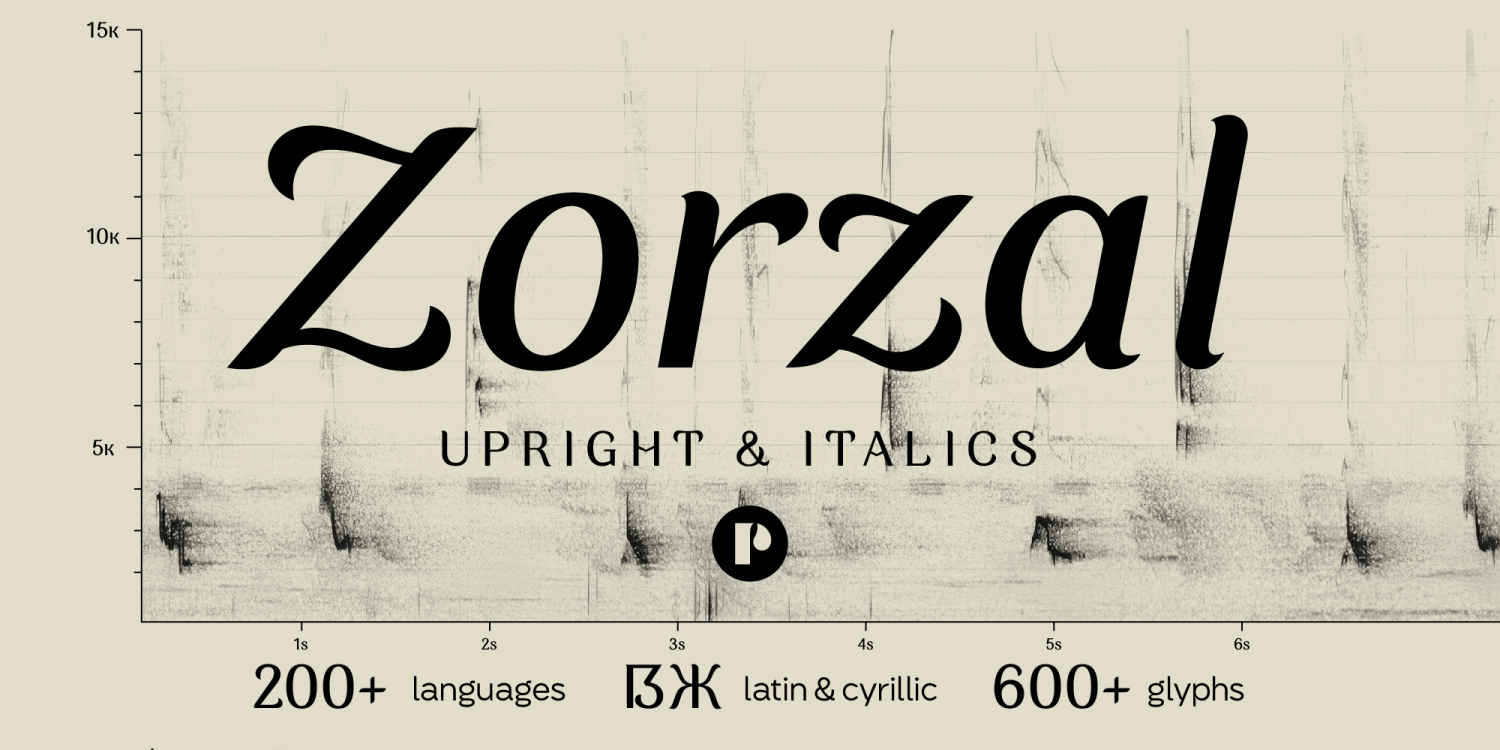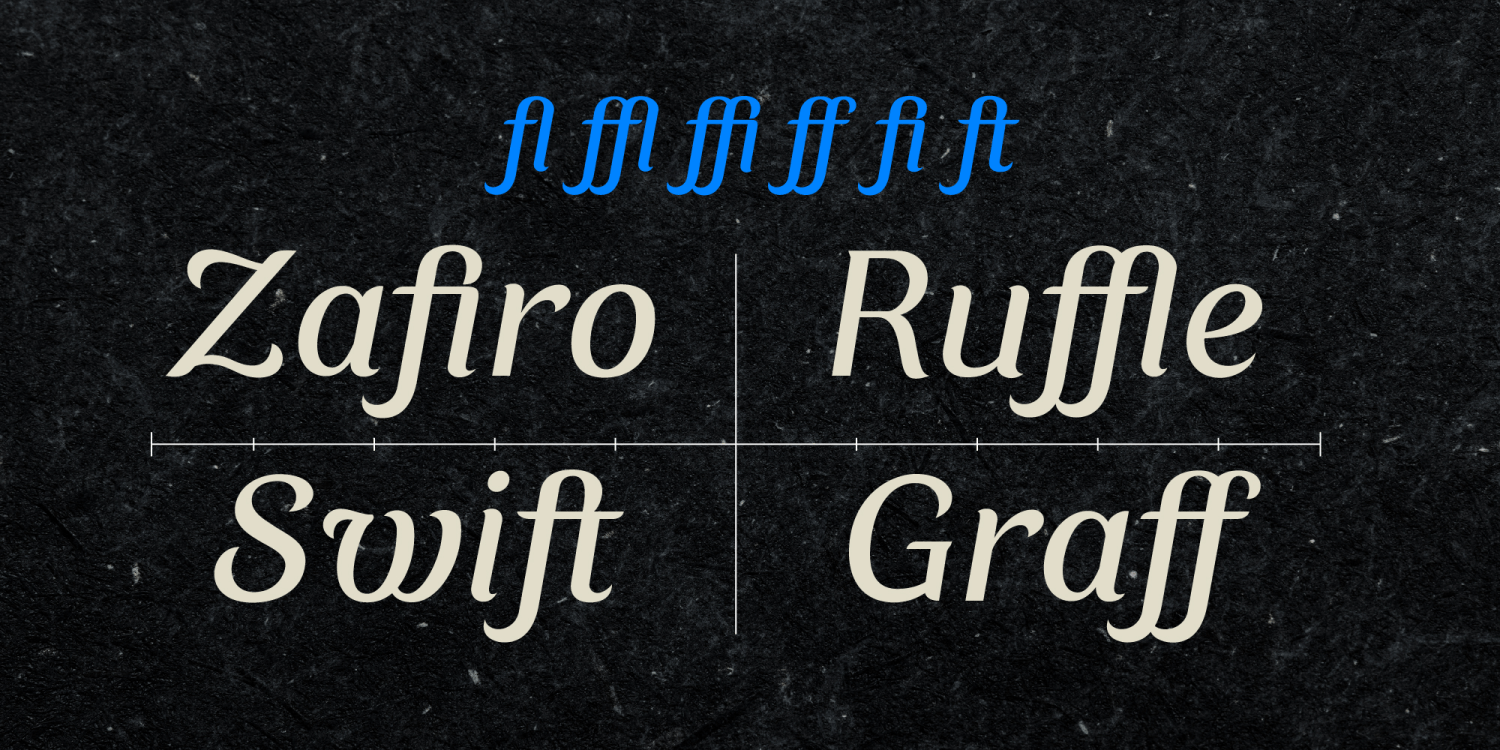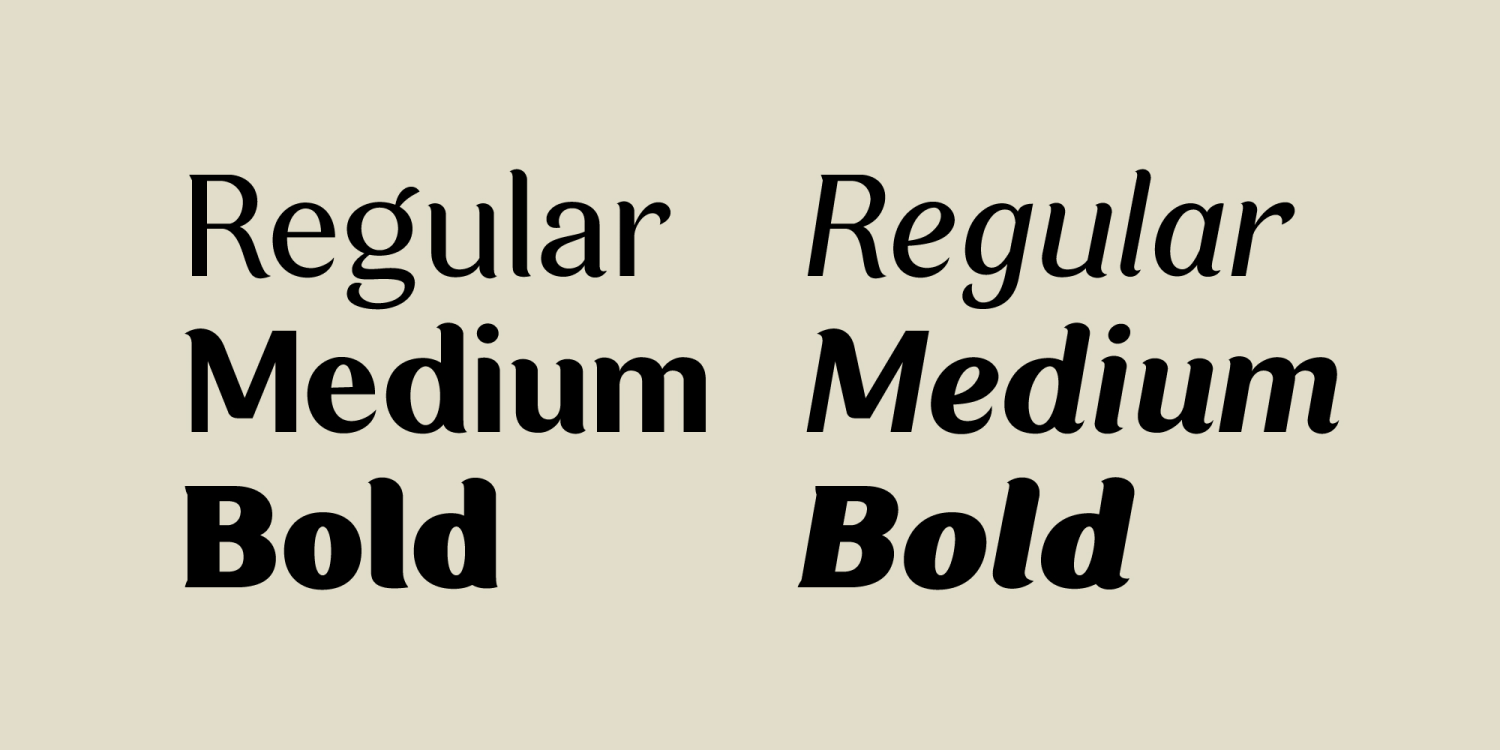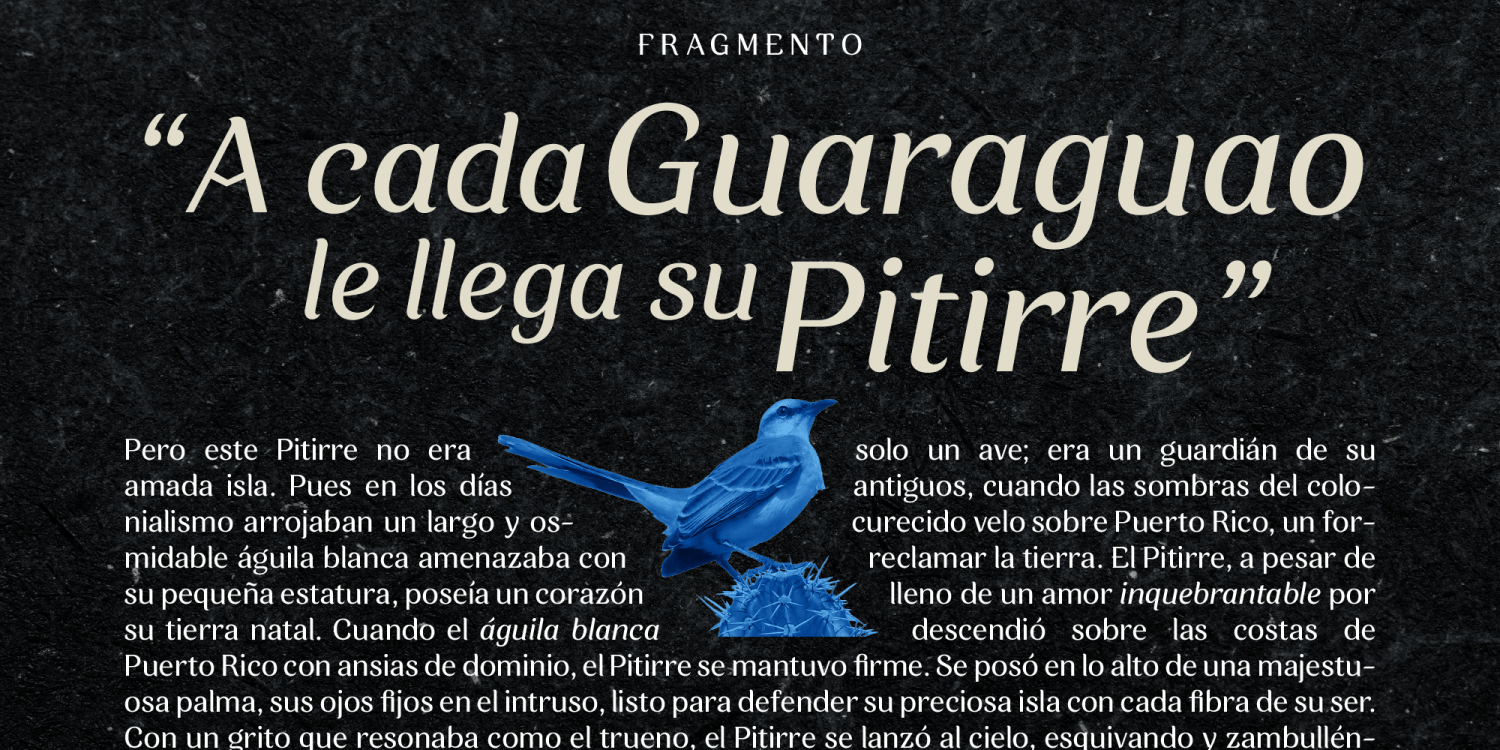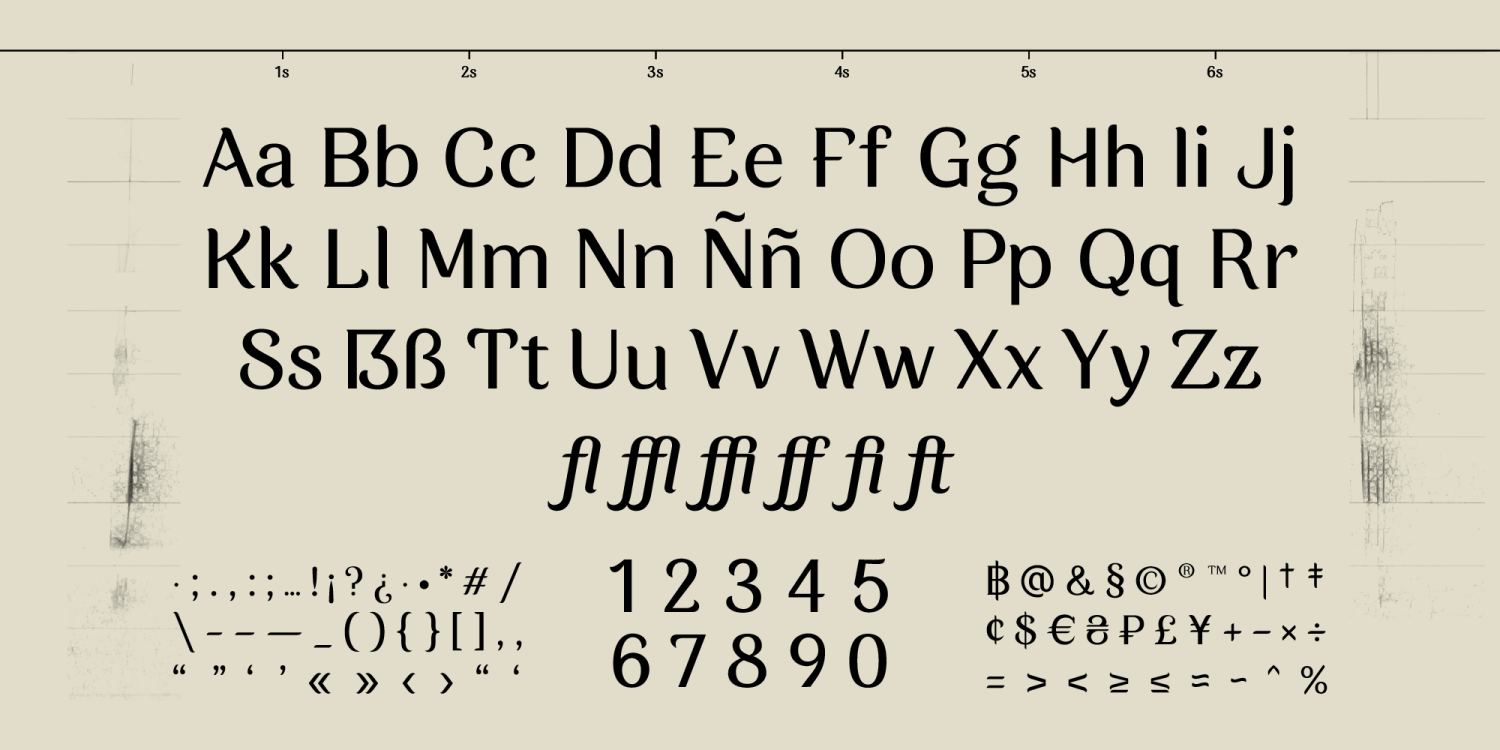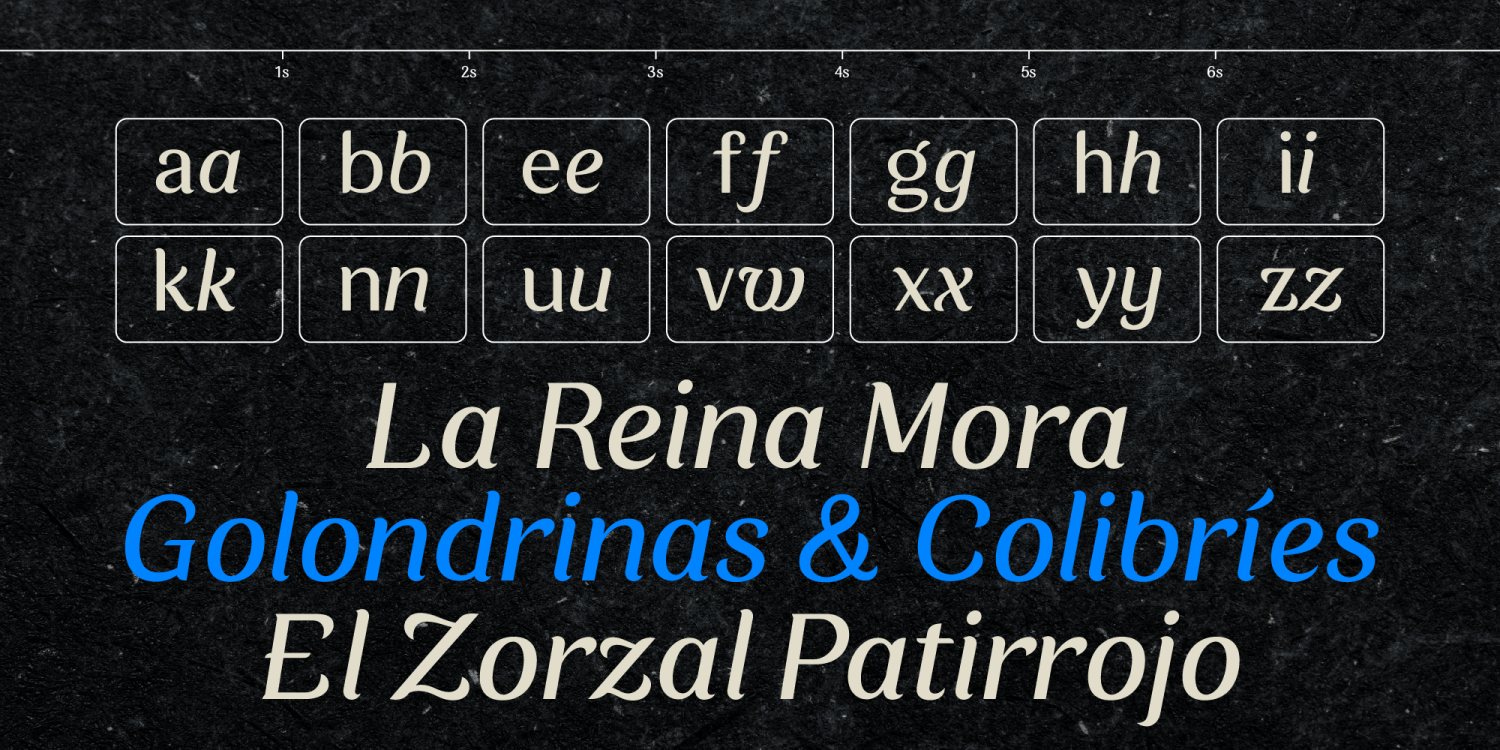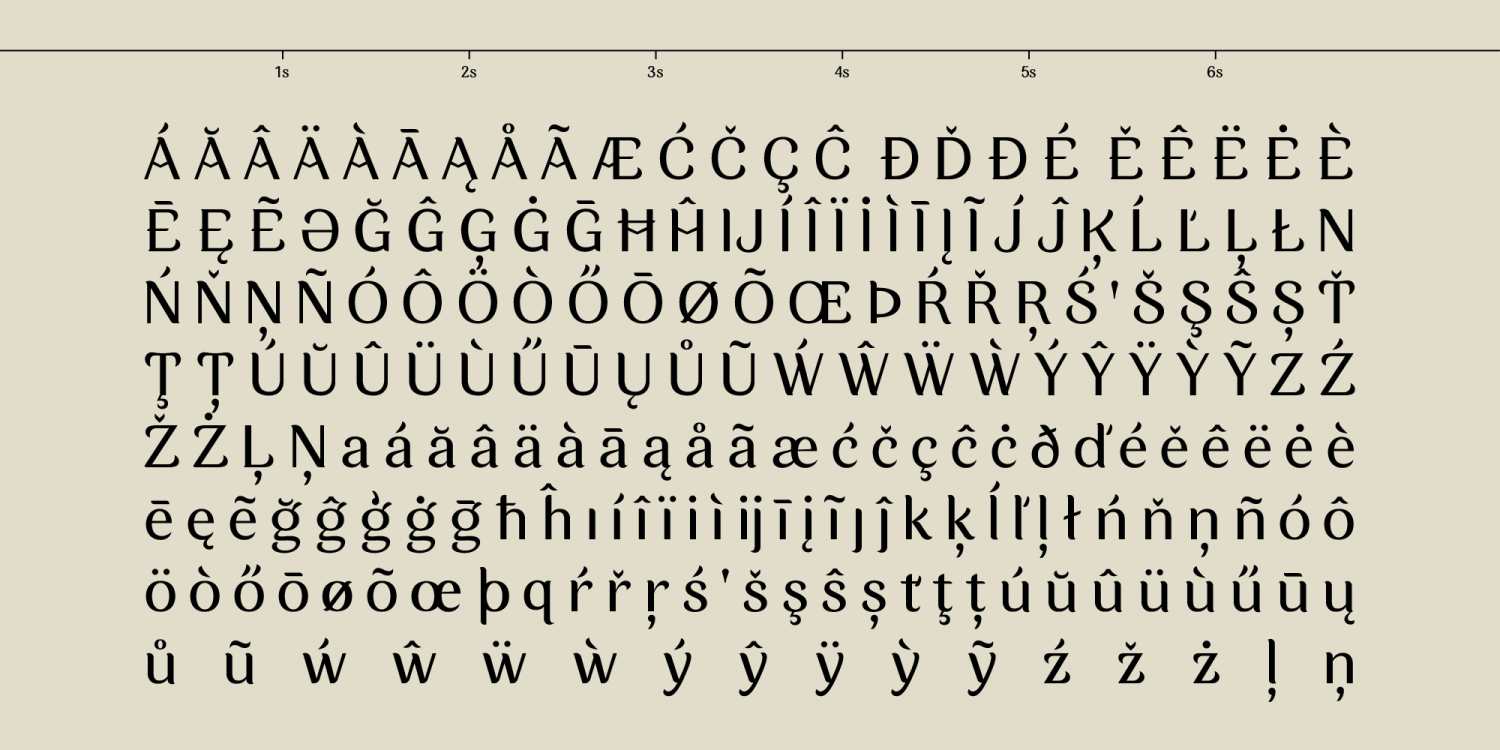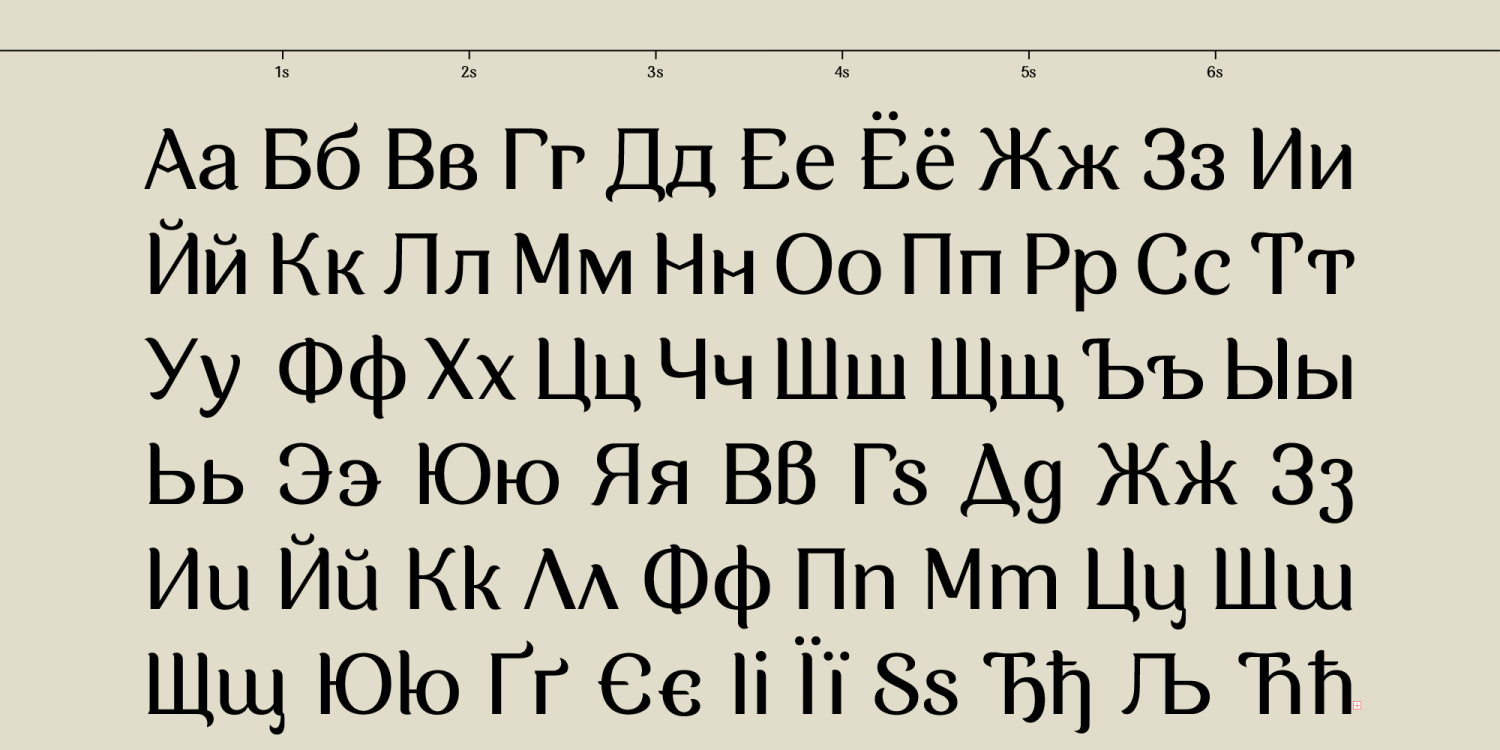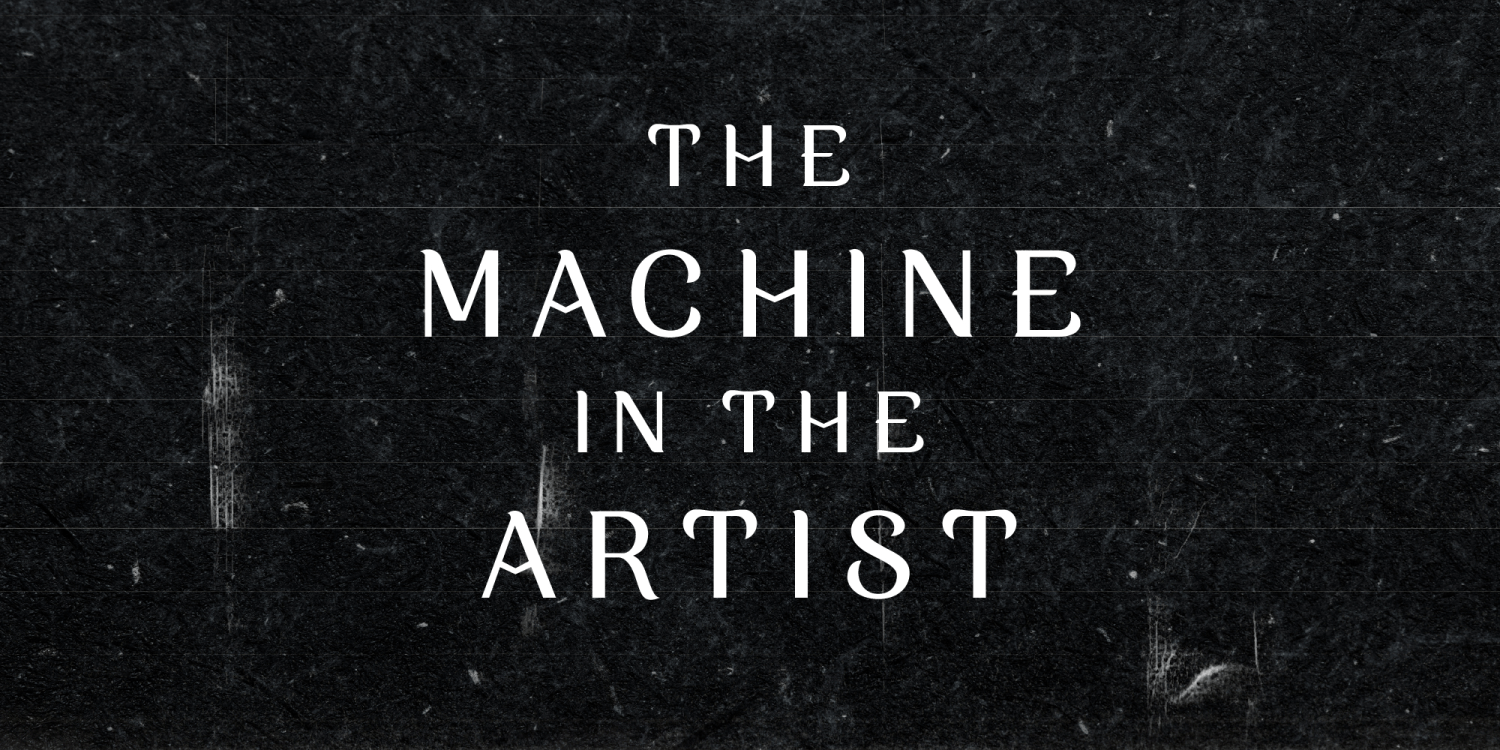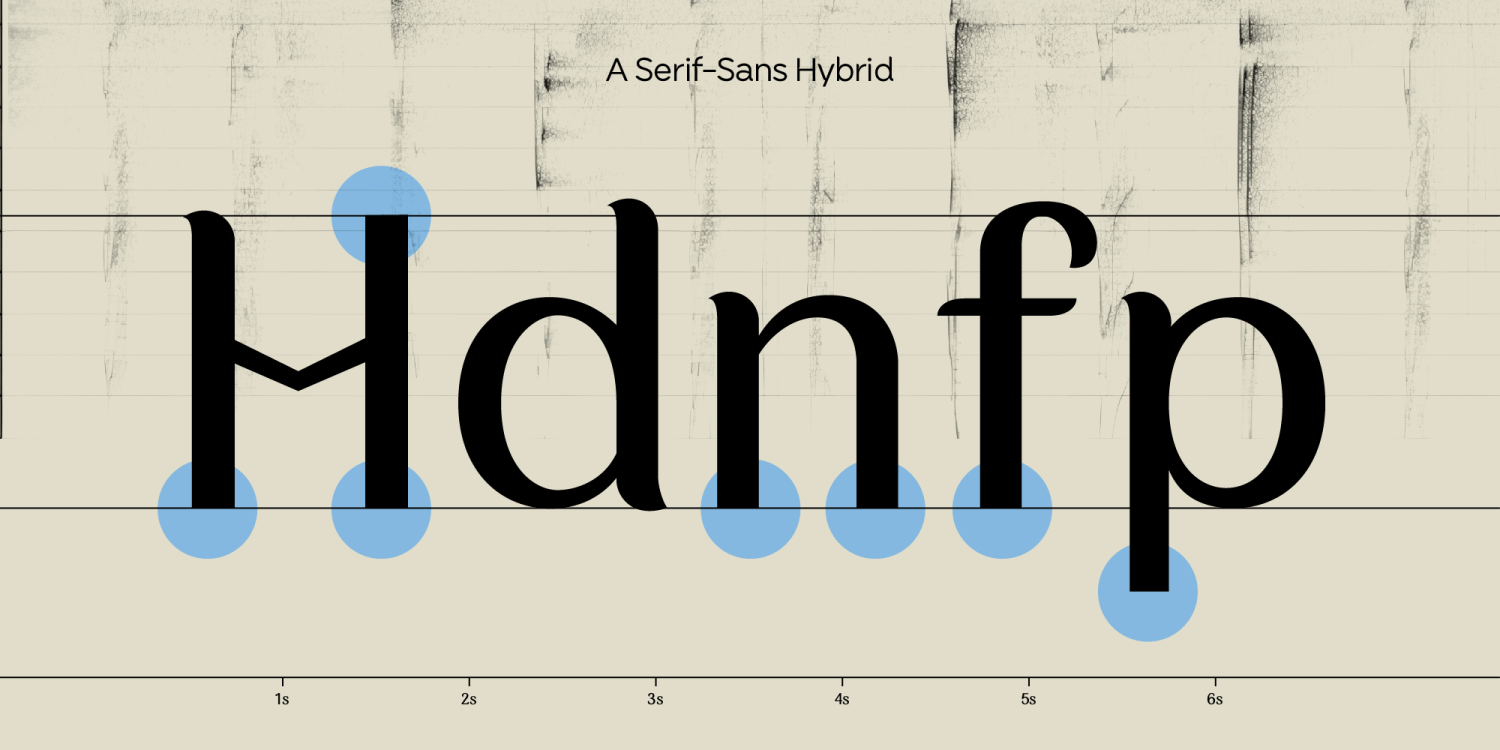
Zorzal
Zorzal is a flared serif typeface that strikes a rare balance between personality and performance. Its subtle calligraphic influences and rhythmic structure make it a natural fit for immersive reading experiences, while its graceful details add warmth and character to editorial layouts, branding, and packaging.
Designed for versatility, Zorzal handles long-form text with unexpected ease, thanks to its generous proportions, open counters, and carefully modulated contrast. The italic brings a sense of movement and expression, offering elegant emphasis without disrupting flow.
Whether used for storytelling or storytelling-adjacent design, Zorzal brings clarity, charm, and a refined sense of motion to the page.